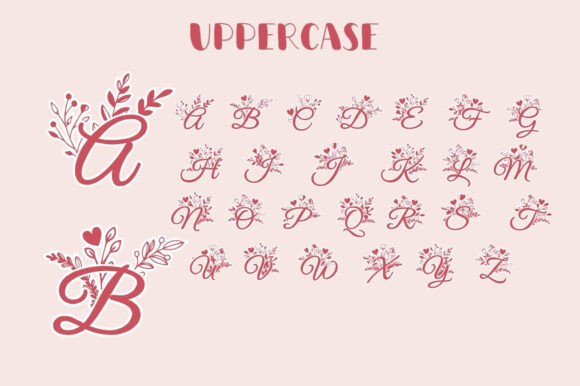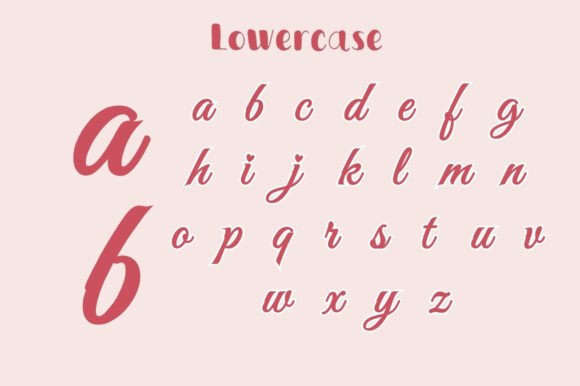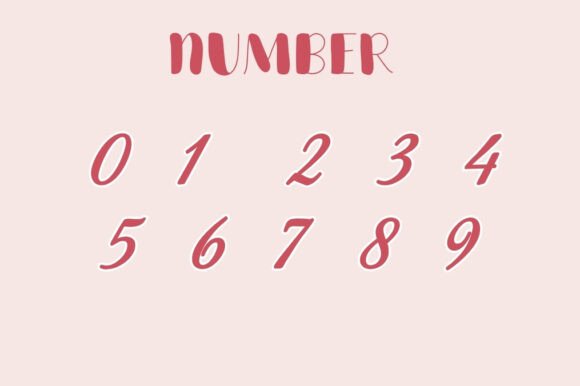
Introducing Heart Love Valentine Font: The Perfect Choice for Romantic Designs
Are you looking for a font that exudes love, elegance, and sophistication? Look no further than the Heart Love Valentine Font. This charming and romantic decorative font is specifically designed for crafting heartfelt designs that capture the essence of love and affection. With its elegant curves and delicate floral and heart accents, this font is perfect for a variety of projects, including Valentine’s Day designs, wedding invitations, greeting cards, and more.
What Makes Heart Love Valentine Font So Special?
The Heart Love Valentine Font is a high-quality font that is provided as an OTF file, making it easy to use for both digital and print projects. Its elegant and refined design features delicate floral and heart accents that add a touch of romance and whimsy to any design. The font’s charming curves and sophisticated style make it perfect for designers and crafters who want to create beautiful and eye-catching designs that convey love and affection.
Perfect for Valentine’s Day Projects
Valentine’s Day is just around the corner, and the Heart Love Valentine Font is the perfect choice for creating romantic and memorable designs. Whether you’re designing Valentine’s Day cards, invitations, or social media graphics, this font is sure to add a touch of love and elegance to your designs. Its delicate floral and heart accents make it perfect for creating designs that are both romantic and playful.
Ideal for Wedding Invitations and Greeting Cards
The Heart Love Valentine Font is not just limited to Valentine’s Day designs. Its elegant and refined style makes it perfect for wedding invitations, greeting cards, and other special occasion designs. Whether you’re designing a formal wedding invitation or a casual greeting card, this font is sure to add a touch of sophistication and elegance to your design.
Key Features of Heart Love Valentine Font
- Charming and romantic design: The Heart Love Valentine Font features a charming and romantic design that is perfect for creating heartfelt designs.
- Elegant curves and delicate accents: The font’s elegant curves and delicate floral and heart accents make it perfect for adding a touch of love and elegance to any design.
- Perfect for Valentine’s Day designs: The font is perfect for creating romantic and memorable Valentine’s Day designs, including cards, invitations, and social media graphics.
- Ideal for wedding invitations and greeting cards: The font’s elegant and refined style makes it perfect for wedding invitations, greeting cards, and other special occasion designs.
Tips for Using Heart Love Valentine Font
Here are a few tips for using the Heart Love Valentine Font in your designs:
- Use it for headings and titles: The font’s elegant and refined style makes it perfect for headings and titles, adding a touch of sophistication and elegance to your designs.
- Pair it with other fonts: The Heart Love Valentine Font pairs well with other fonts, making it easy to create beautiful and eye-catching designs.
- Experiment with different colors: The font looks great in a variety of colors, so don’t be afraid to experiment and find the perfect color for your design.